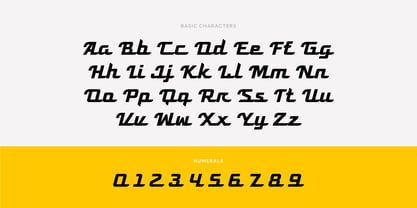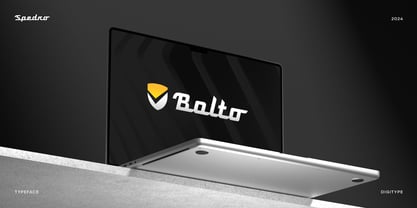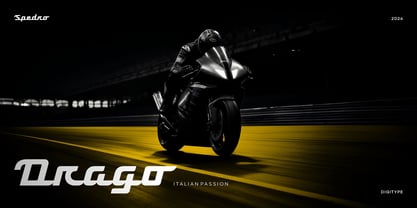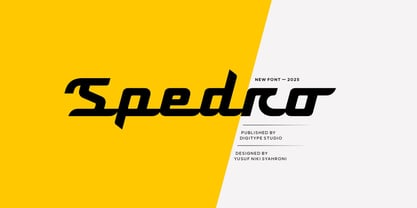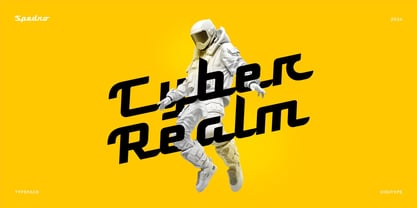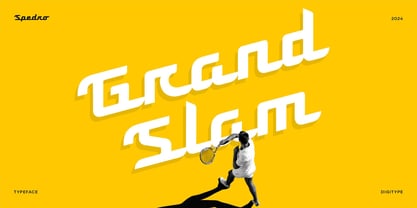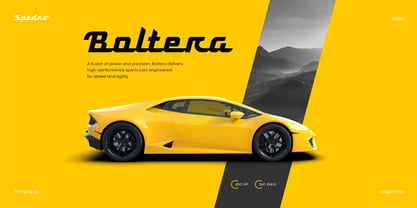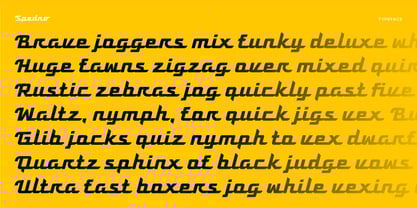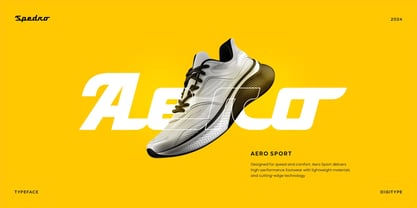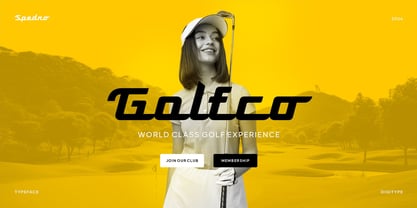
Spedro
by Digitype Studio
The Spedro Font Family was designed by Yusuf Niky Syahroni and published by Digitype Studio. Spedro contains 1 styles.
Spedro is a sporty script font, sharp and bold, designed with a dynamic and energetic aesthetic to bring speed and vitality to your projects. Its futuristic and powerful design makes it ideal for branding, sports, the automotive industry, technology, esports, and any project that requires a strong, stylish presence.
Designers: Yusuf Niky Syahroni
Publisher: Digitype Studio
Foundry: Digitype Studio